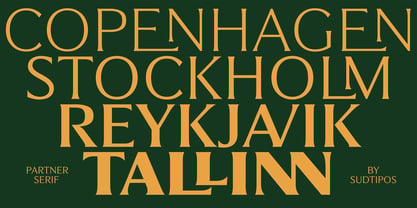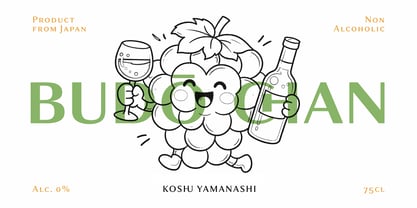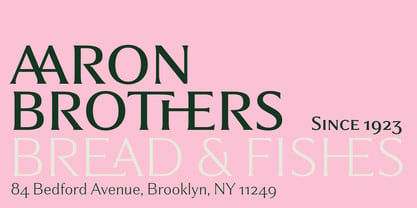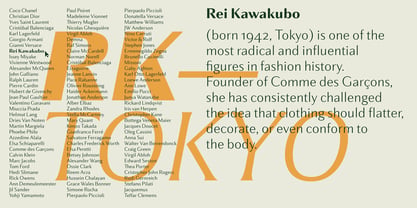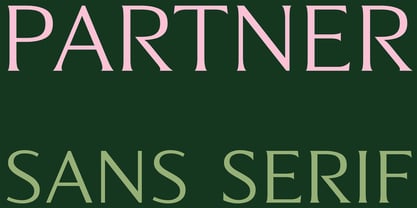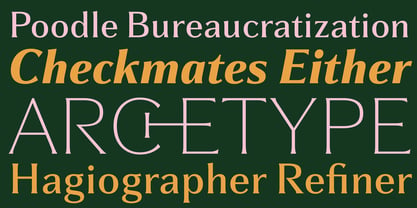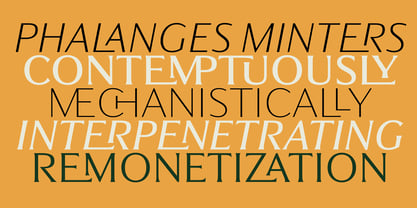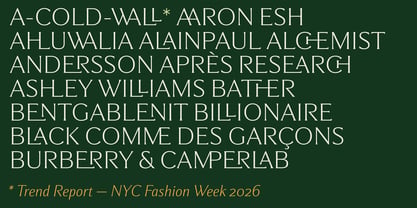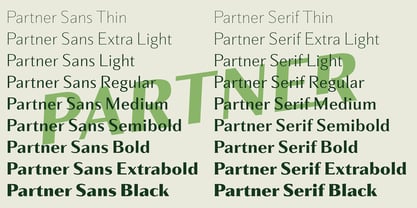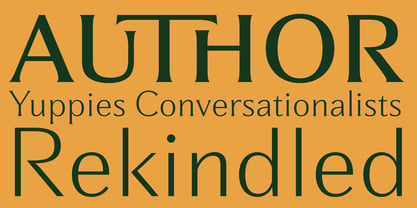
Partner
by Sudtipos
Partner was born out of a dialogue with a place and a way of understanding food. The project remained on hold for some time, until it was reactivated through a very specific commission: the creation of a custom typeface for a neo-bistro by a renowned chef in Argentina. A space where technique meets ease, where precision coexists with warmth, and tradition is reinterpreted through a contemporary lens. The first iteration was a sans serif in two weights, designed to live naturally within the restaurant—clear, functional, and quietly refined. From this real, everyday use, the family began to expand, eventually growing into nine weights with true italics. Along that path, a key idea emerged: to extrapolate the original structure and allow it to evolve—without fracture—into a serif. Partner is a variable type family in which sans and serif coexist within a single file, connected by a continuous axis that moves seamlessly from one to the other, and from light to black. The incised serifs are not a historical gesture, but a contemporary tool—sharpening the voice, adding texture and tension, and opening the door to a more editorial expression. Inspired by the intersection of graphic design, fashion, and 20th-century visual culture, Partner translates that sensibility into a modern typographic system. It is subtle, elegant, and timeless; classic without stiffness, modern without excess. A versatile typeface designed to adapt, to accompany, and to elevate without insisting. The family also includes a set of connected uppercase letters, offering an alternative rhythm and a more expressive, editorial tone. Partner feels at home in contexts where form is part of the narrative: gastronomy, fashion, perfumes, fine beverages, books, and magazines. Much like a neo-bistro, it balances technique and approachability, precision and pleasure—effortless, but never casual.